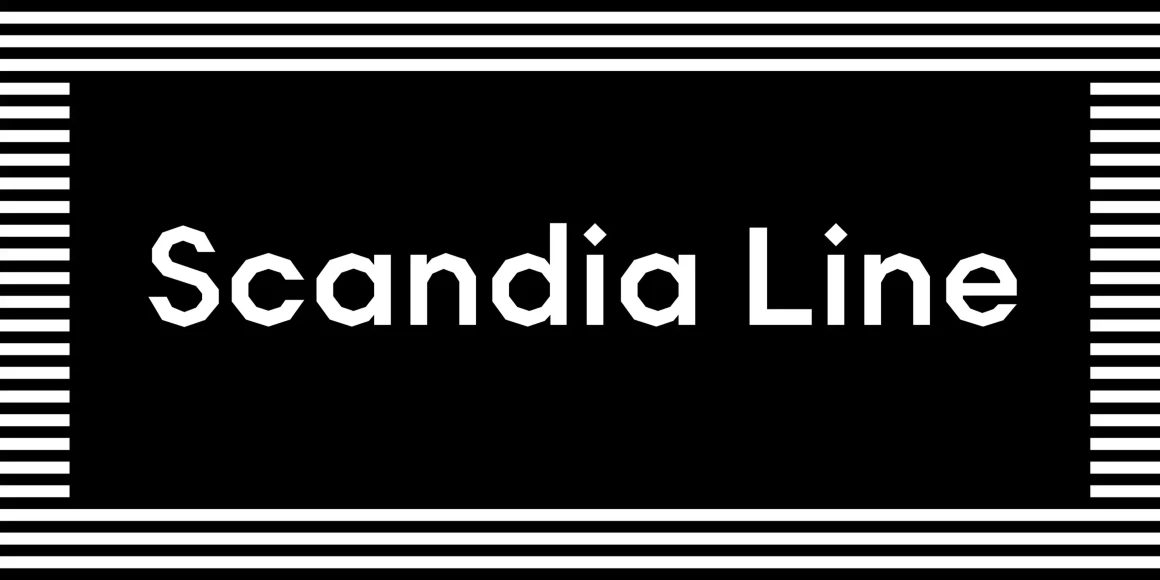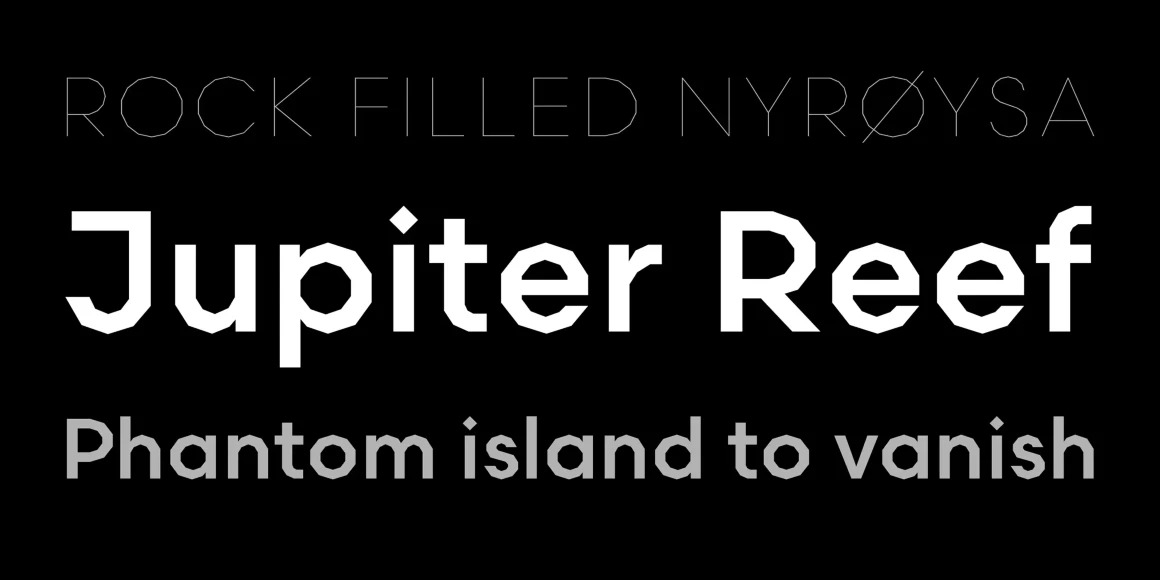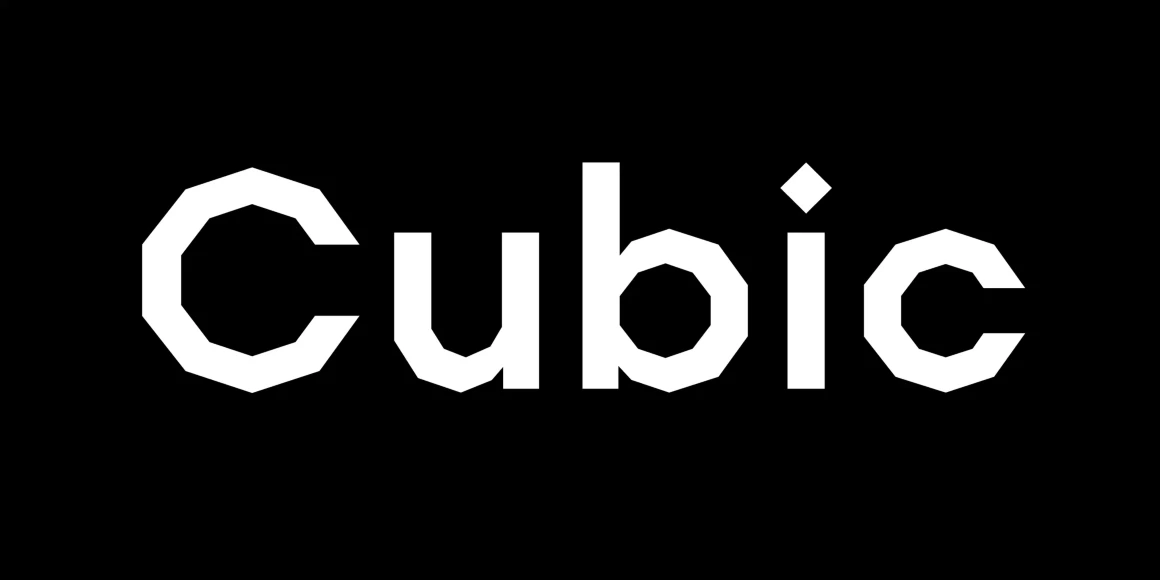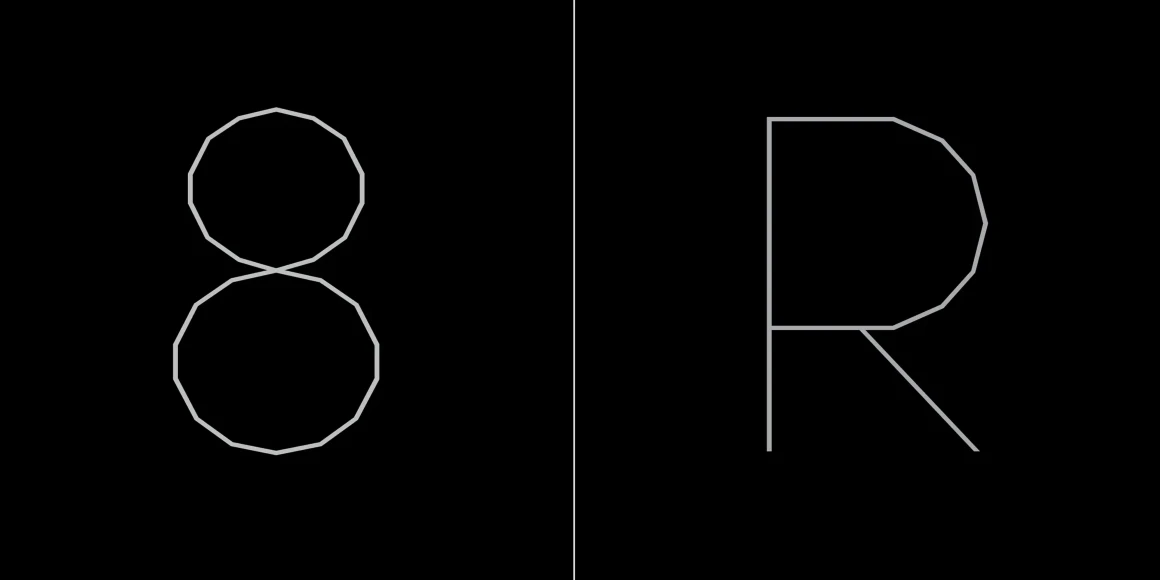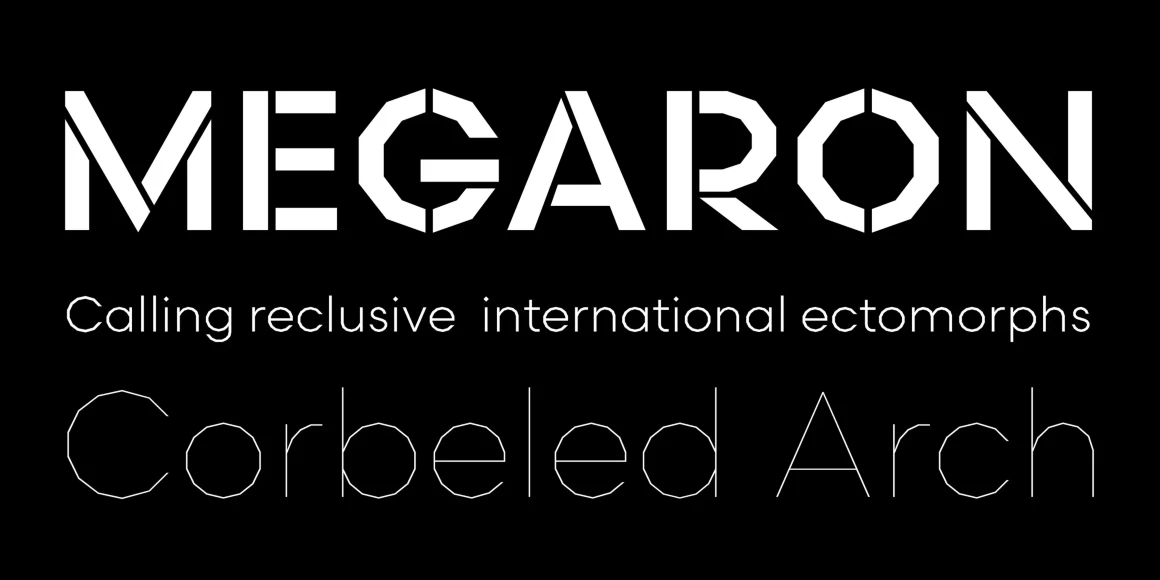
Scandia Line
From Process Type Foundry
Scandia Line is a skeletal sans with no curves. It uses lines and angled segments to suggest familiar circular proportions but remains a thoroughly usable typeface. From the delicate to the severe, the four weights and stencil variant were carefully drawn to to control contrast and deny monotony – the number of sides even change from Light to Bold. Plus, a handful of characters have stylistic alternates with sharper corners (A, M, N, V, W, v, and w). See Scandia, its full-bodied sibling.
Designed by Eric Olson